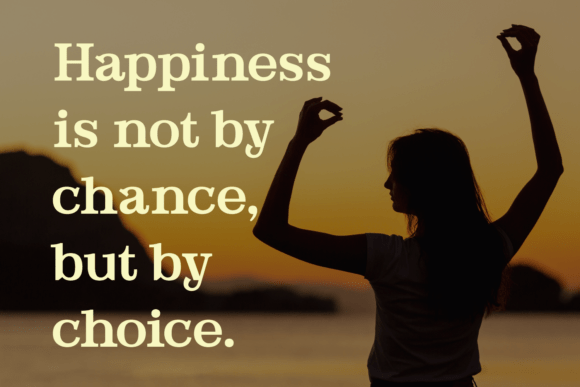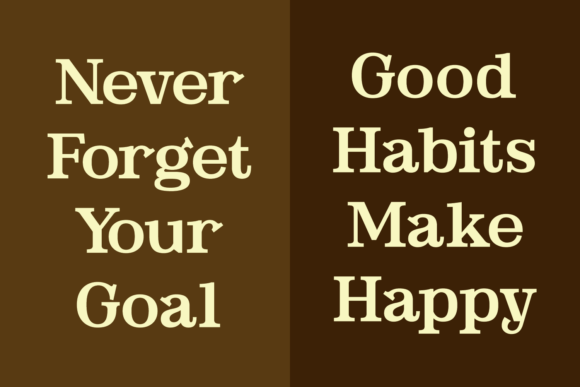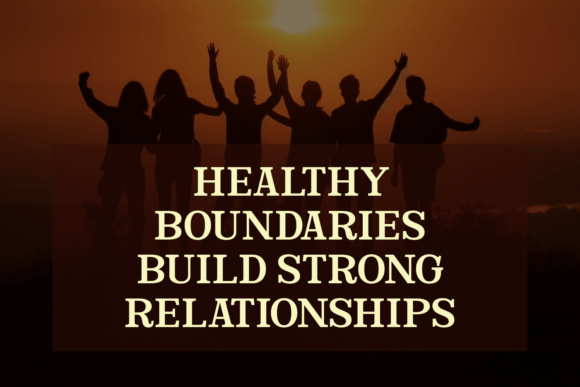
Crown Family Font: Elevate Your Design with Regal Elegance
In the world of typography, few fonts capture the essence of luxury and sophistication as effortlessly as Crown Family. This beautifully crafted serif font is designed to bring an air of elegance and refinement to any project, making it the perfect choice for designers and crafters seeking to create something truly special. Inspired by classic typography but infused with a modern edge, Crown Family is a versatile font that can elevate a wide range of applications, from luxury branding and formal event invitations to heritage packaging, editorial layouts, and high-end advertising.
The Essence of Crown Family
At the heart of Crown Family lies a deep understanding of the power of typography to evoke emotions and convey prestige. This regal font is characterized by its graceful curves and strong presence, which combine to give your work a sense of importance and style. Whether you’re creating a brand identity that exudes luxury, designing an invitation for a high-society event, or crafting a marketing campaign that demands attention, Crown Family provides the perfect typographic solution.
Inspired by Classic Typography, Designed for the Modern Era
Crown Family draws inspiration from the timeless elegance of classic serif typography, yet it has been carefully crafted with a modern edge to ensure it meets the needs of contemporary design. This blend of old-world charm and new-age sophistication makes Crown Family a uniquely versatile font, capable of enhancing a diverse array of projects. From the pages of high-end magazines and the covers of prestigious books to the packaging of luxury goods and the signage of boutique hotels, Crown Family brings a level of refinement and poise that is hard to match.
Perfect for Luxury Branding
For brands that aspire to convey a sense of luxury, sophistication, and heritage, Crown Family offers an exceptional typographic solution. Its elegant lines and classic proportions make it an ideal choice for logo design, brand guidelines, and marketing materials. By incorporating Crown Family into your brand identity, you can instantly elevate your brand’s perceived value and communicate a commitment to quality and excellence.
Elevate Your Editorial and Advertising Projects
In the realm of editorial design and advertising, the choice of font can significantly impact the readability and aesthetic appeal of your content. Crown Family, with its clear and refined letterforms, is perfect for body text, headlines, and titles. It adds a touch of sophistication to editorial layouts, making it suitable for high-end publications, fashion magazines, and literary journals. In advertising, Crown Family can help your campaigns stand out with its distinctive and luxurious feel, ensuring your message is delivered with impact and style.
Crafting Timeless Designs with Crown Family
For crafters and designers who value the art of creating something that stands the test of time, Crown Family offers a wealth of creative possibilities. Its classic appeal ensures that your designs will remain relevant and stylish for years to come, avoiding the fleeting nature of trends. Whether you’re working on a personal project, a client’s brief, or a passion project, Crown Family provides the typographic foundation for creating works that are not only beautiful but also enduring.
Crown Family is more than just a font; it’s a design statement. It embodies the perfect blend of classic elegance and modern sophistication, making it an indispensable tool for designers and crafters who aim to create works of distinction. If you’re looking to imbue your projects with a sense of prestige, timelessness, and elegance, Crown Family is the perfect match. With its regal presence and versatile application, Crown Family is poised to become your go-to font for projects that demand the very best.
Key Features of Crown Family Font:
- Regal and Elegant Design: Inspired by classic typography with a modern edge.
- Versatile Application: Suitable for luxury branding, formal invitations, heritage packaging, editorial layouts, and high-end advertising.
- Timeless Appeal: Ensures your designs remain stylish and relevant for years to come.
- Strong Presence: Gives your work a sense of importance and sophistication.
Discover the transformative power of Crown Family and elevate your designs to new heights of elegance and sophistication.